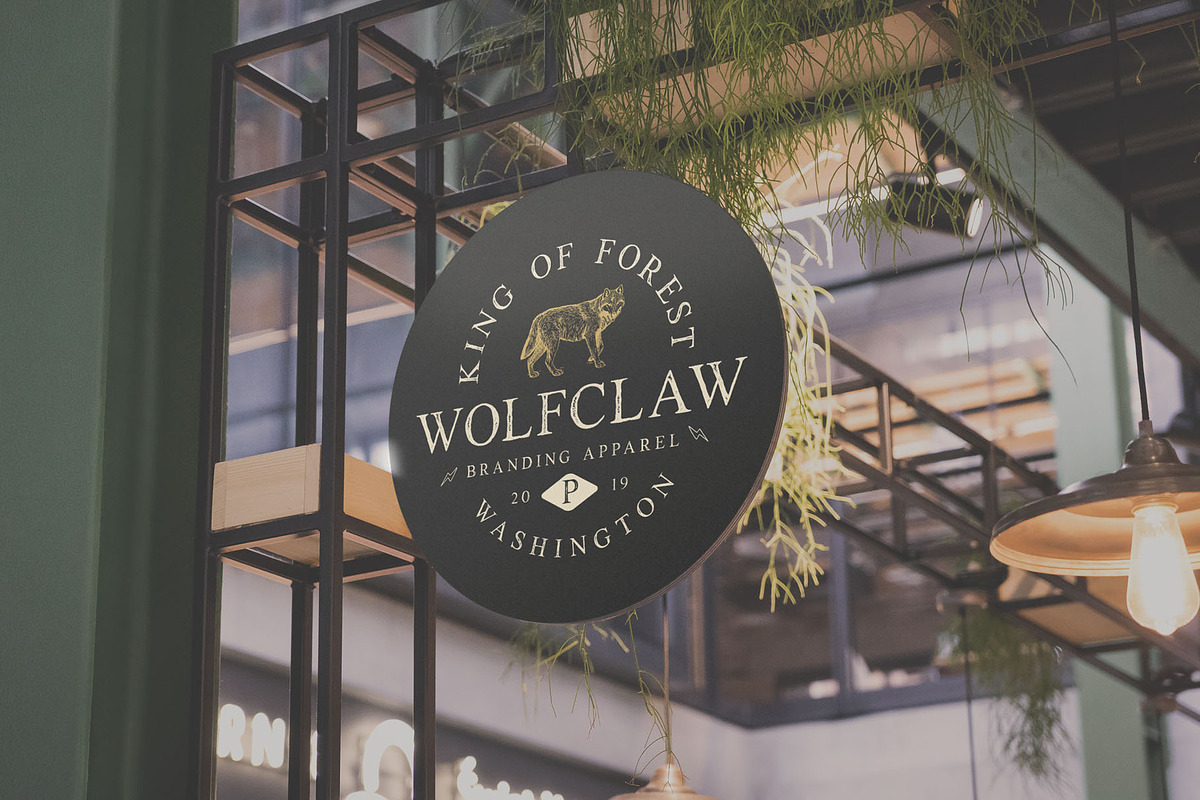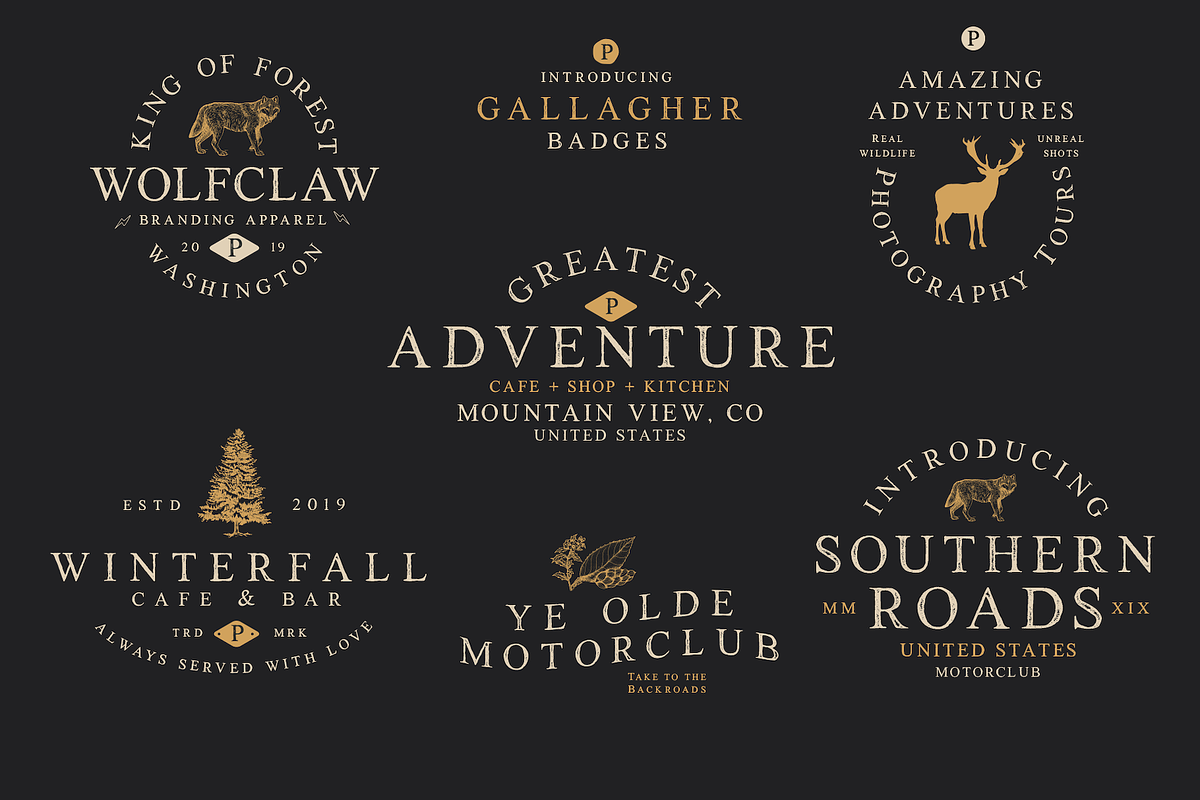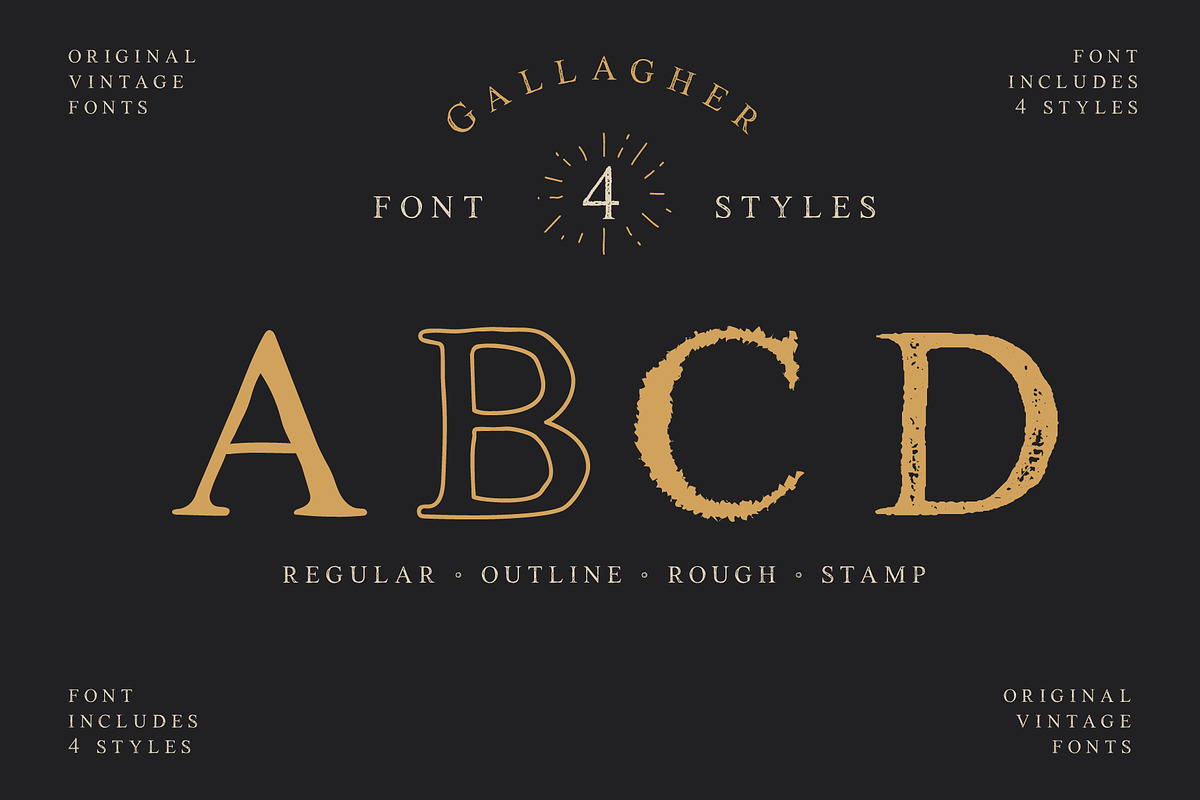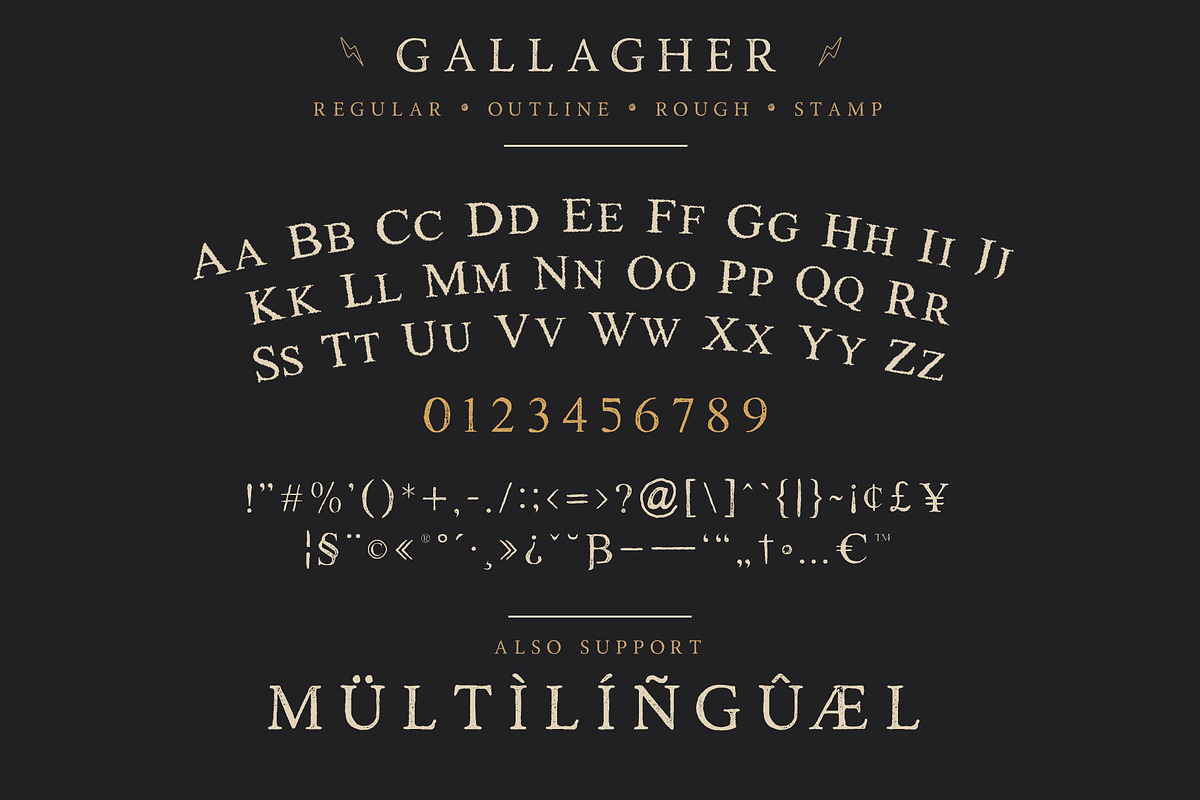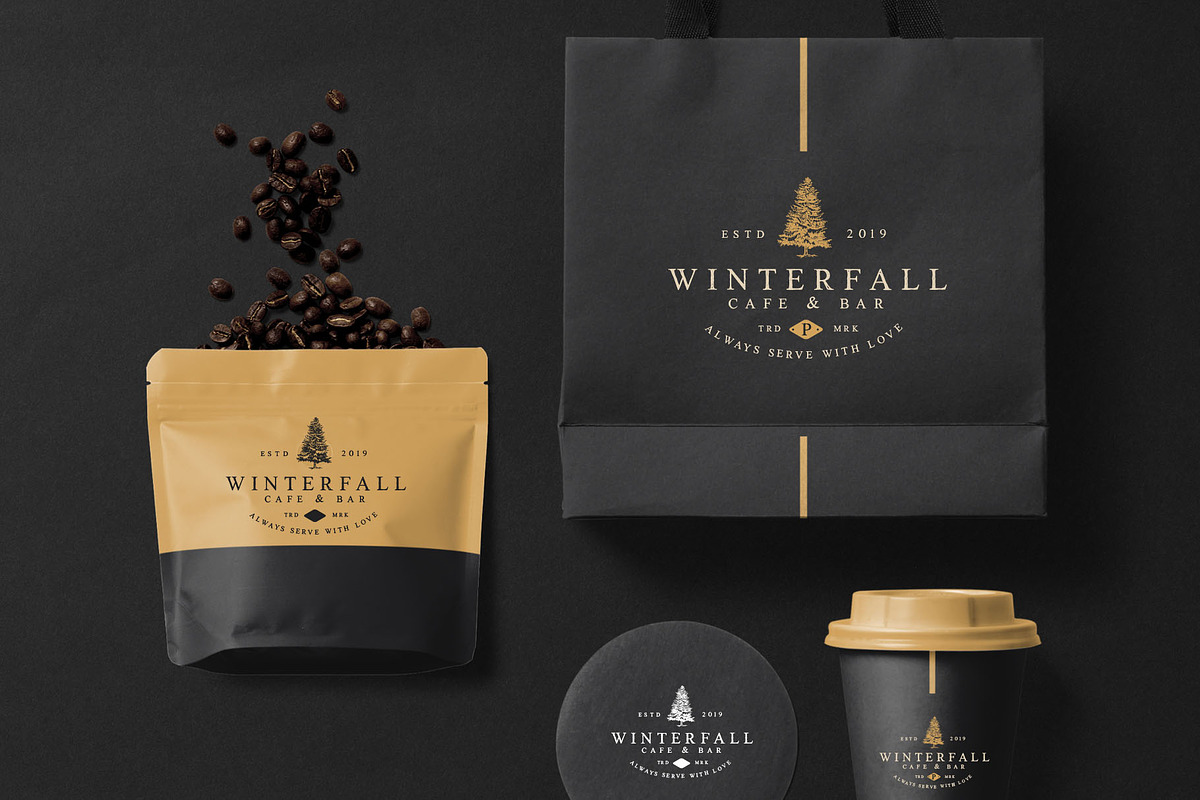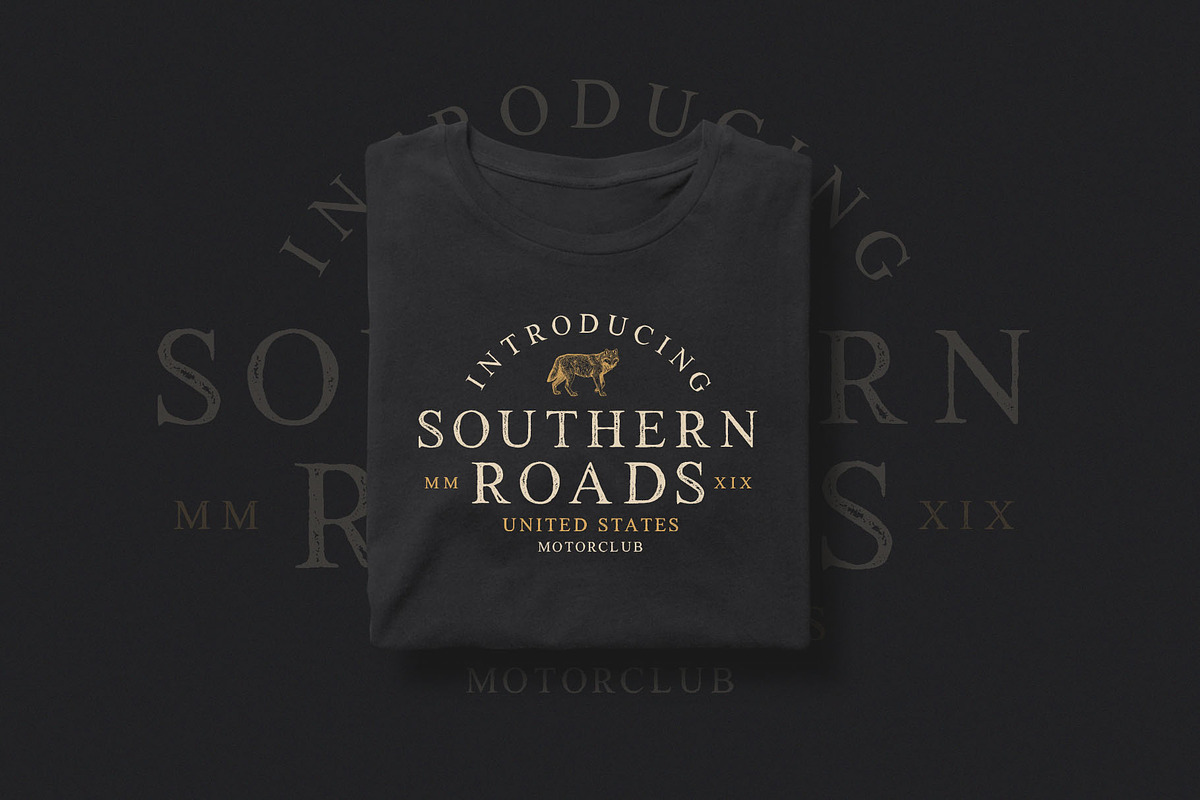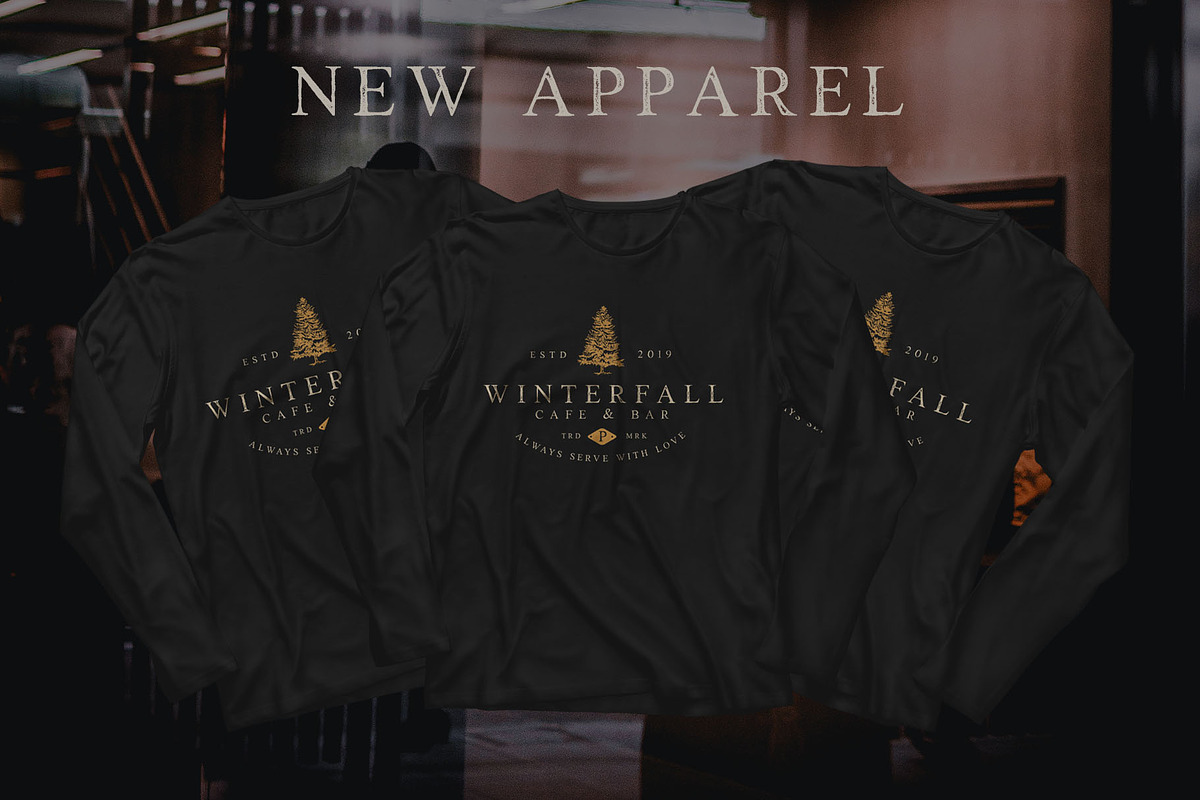
Gallagher - Vintage Serif Typeface
Gallagher is a handcrafted vintage font, available in 4 styles - Regular, Rough, Stamp & Outline.
That makes Gallagher perfect for any vintage or industrial project as you can combine styles as needed. All fonts feature large & small caps plus multilingual characters.
- All fonts feature large & small caps plus multilingual characters.
Gallagher - Vintage Serif Typeface by Surplus Type Co fits naturally into Branding, posters, packaging, typography.